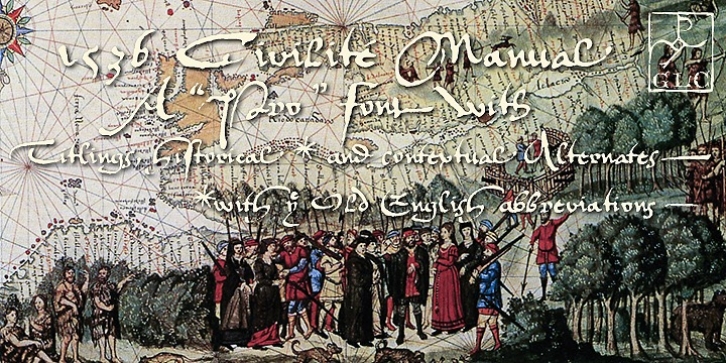
This font was created inspired from a handwritten copy of the 'Brief story of the second journey in Canada' (1535) by French explorer Jacques Cartier. It is an early 'Civilité' manual style, closely looking like the 'Civilité' script font carved by Robert Granjon a few years later and still strongly influenced by blackletters forms, clearly visible in the capitals or long s, d, e, f or t forms. (Look at our '1557 Civilite Granjon Pro' and the latest '1638 Civilite Manual'). It is containing Western (including Celtic) and Northern European, Icelandic, Baltic, Eastern, Central European and Turquish diacritics.
Historical forms, titling alternates and the numerous lower alternates or ligatures made the font looking like a real various hand.